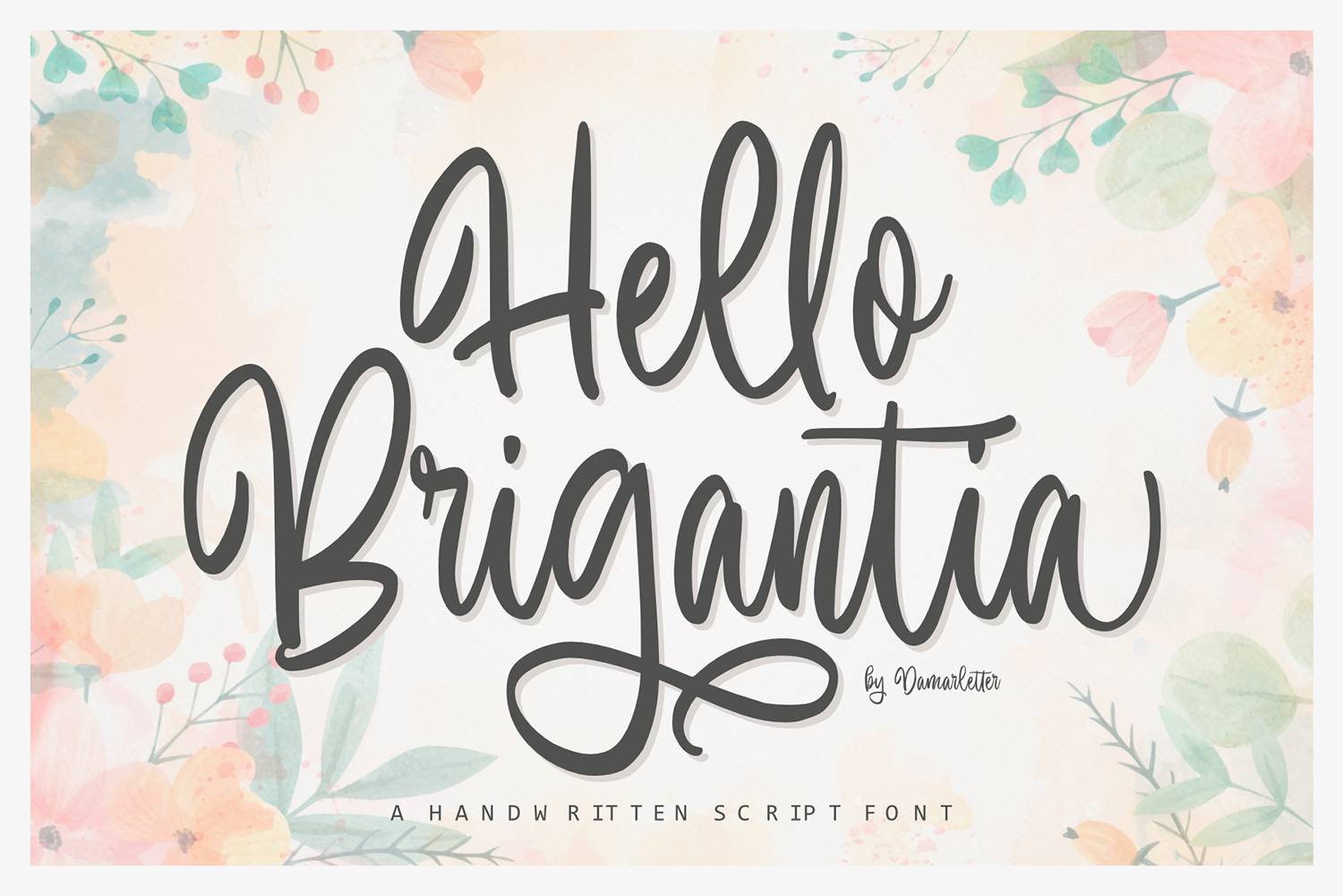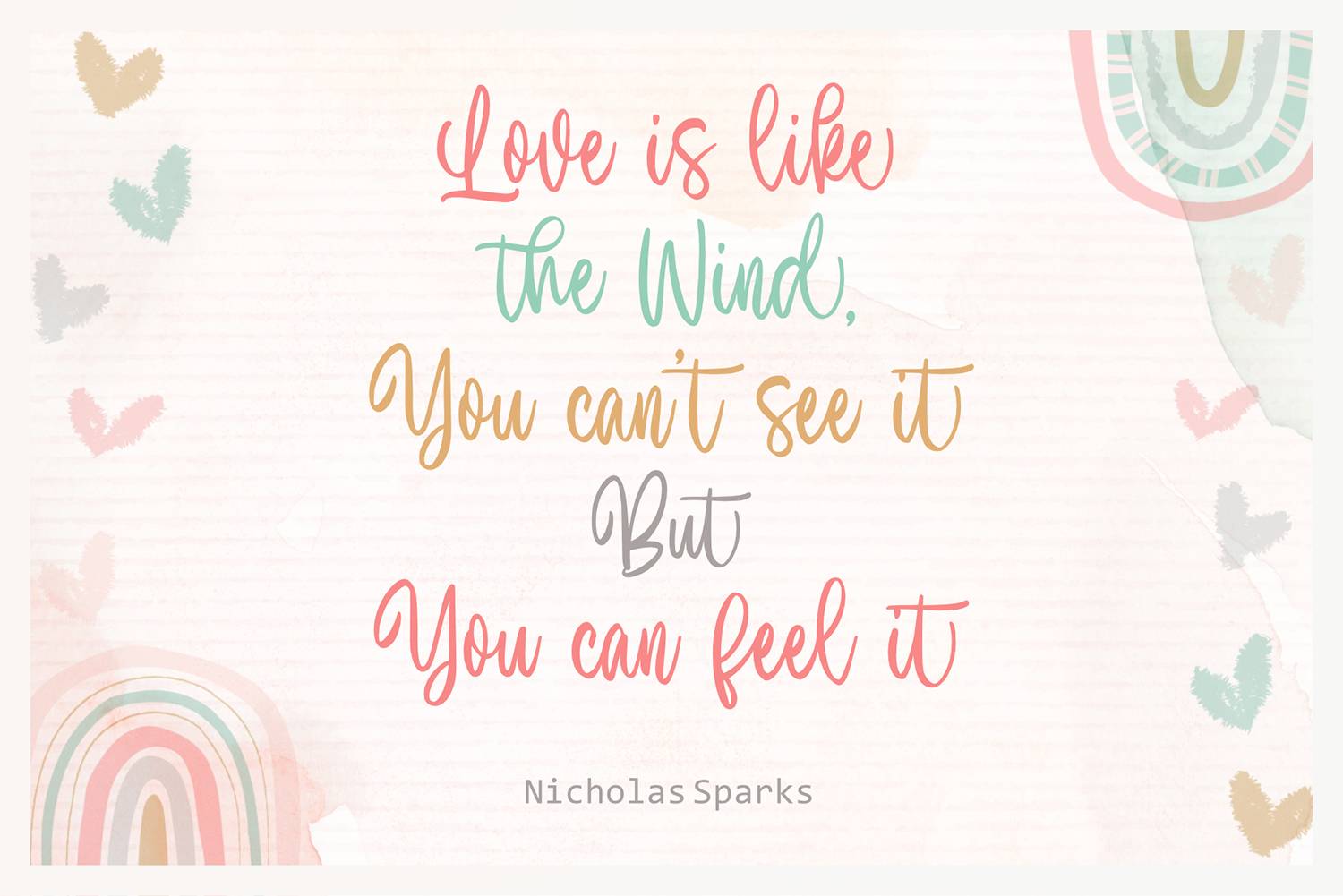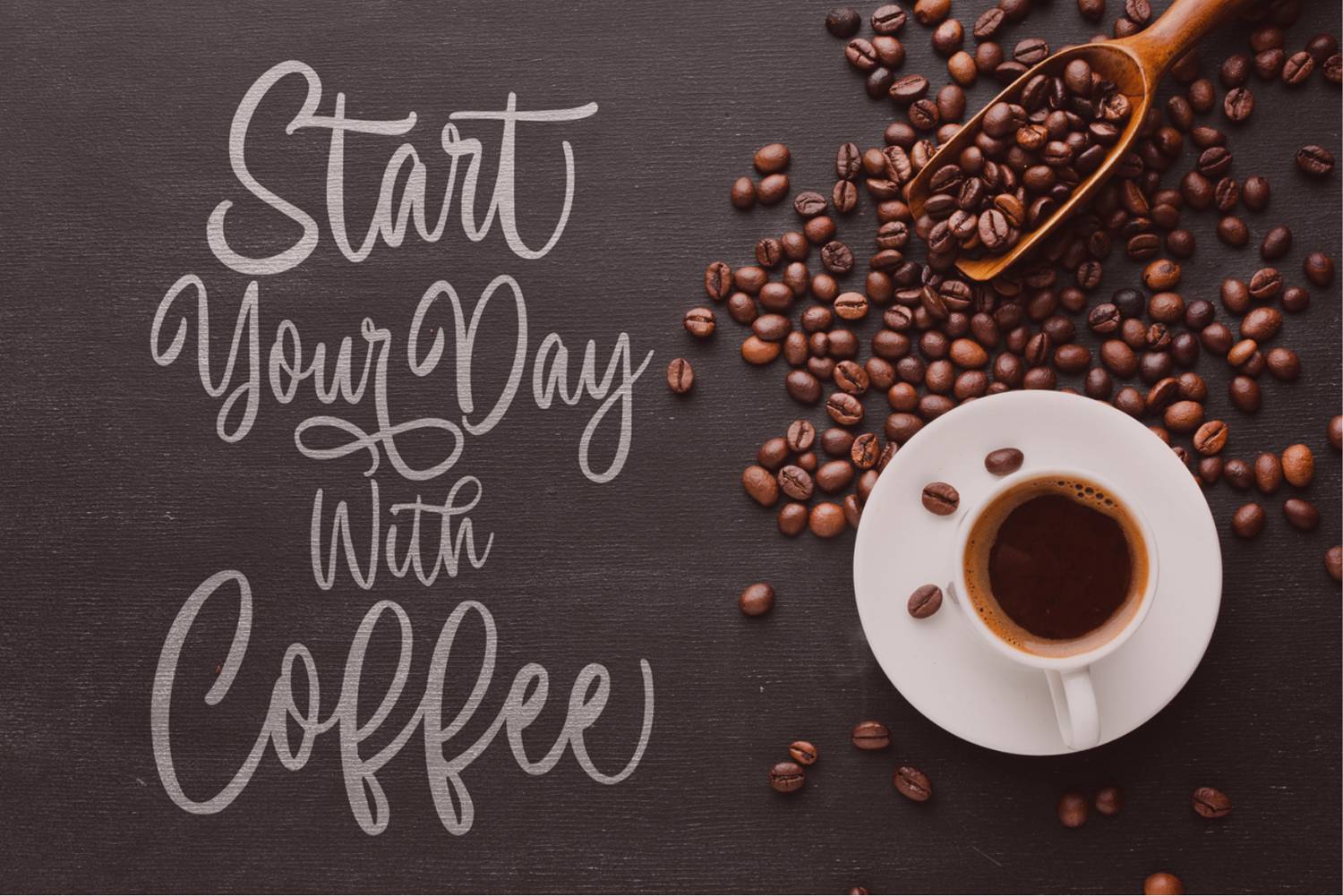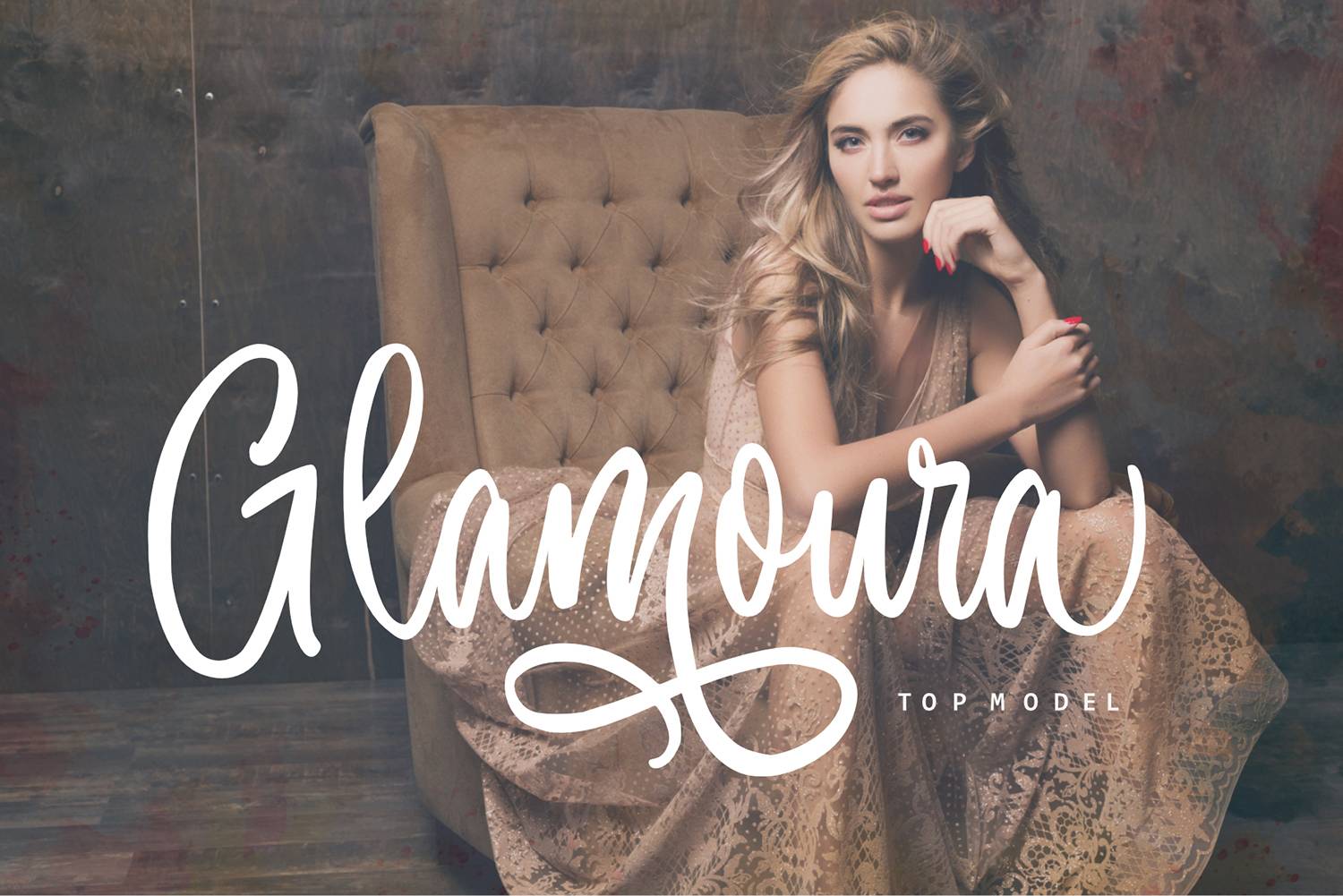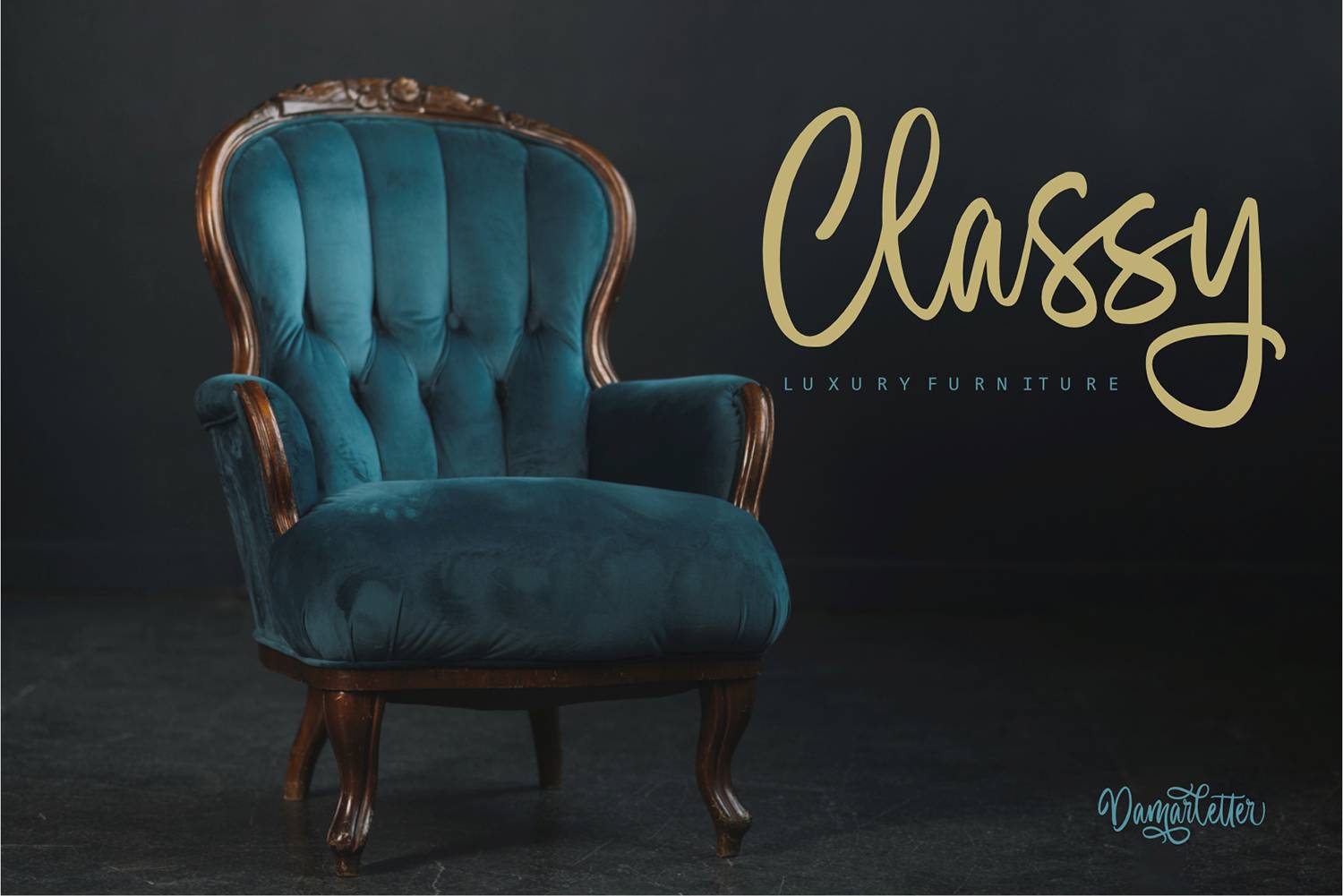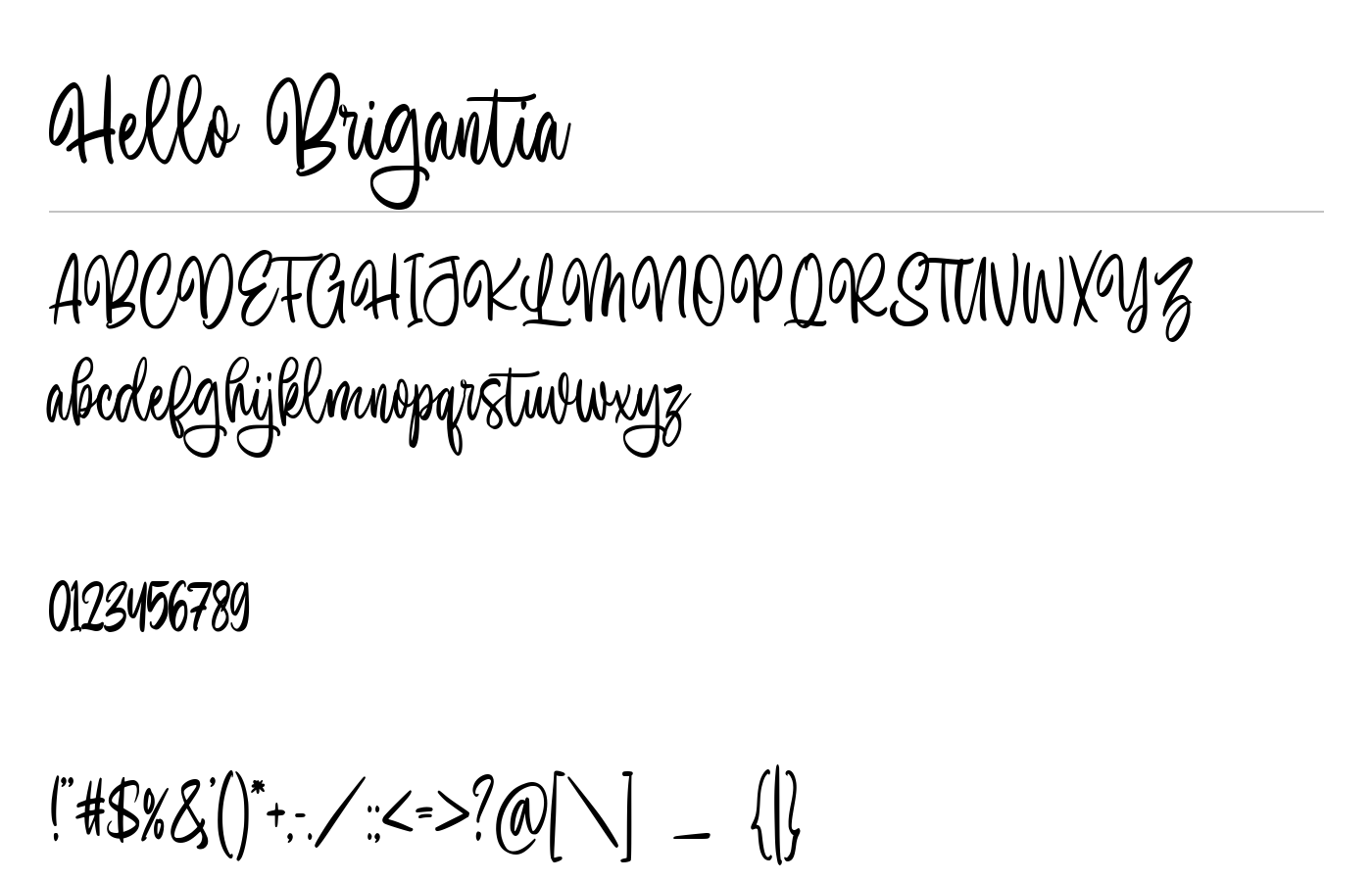
Hello Brigantia is a lively and playful script font with a casual handwritten style. Its slender strokes and smooth curves create an inviting, friendly vibe that works well for creative projects, invitations, and branding that seeks a personal touch. This font’s energetic yet legible letterforms make it a great choice for adding warmth and character to logos, packaging, and social media designs.
Hello Brigantia Font
About Hello Brigantia Font
| Font family | Hello Brigantia Font |
| Designer | Ardian Nuvianto |